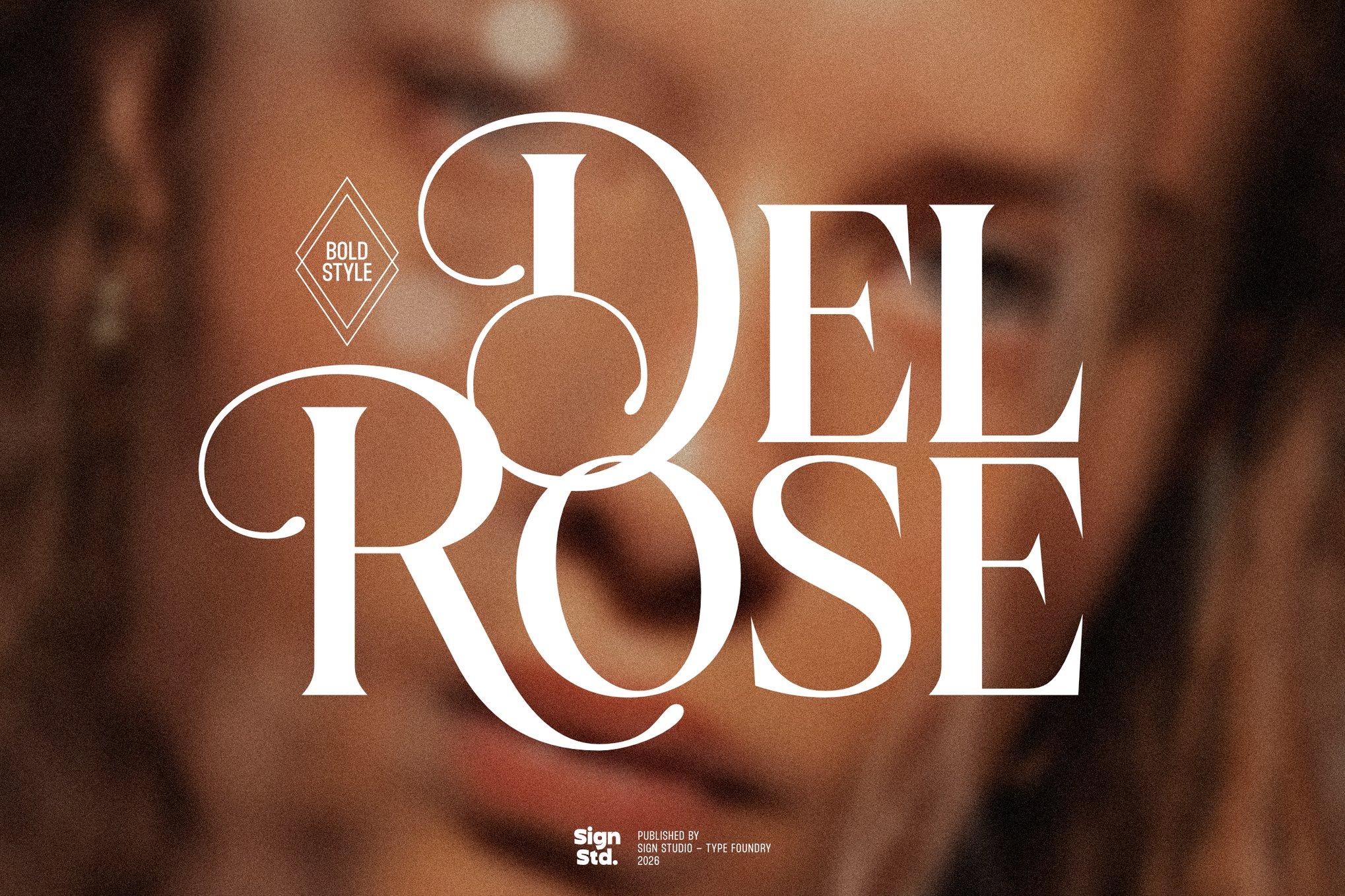
Del Rose – Bold Elegant Font
Del Rose – Bold Elegant Font is a distinctive and expressive font crafted to bring personality, structure, and creative energy into your projects. Del Rose Bold is an elegant serif font that combines timeless beauty with a bold, confident presence. Carefully crafted with refined details and balanced proportions, it brings sophistication and strong visual impact to a wide range of creative projects.
Its bold weight is perfect for eye-catching headlines, luxury branding, logos, editorial layouts, packaging, invitations, beauty products, and premium marketing materials. Designed to stand out while maintaining excellent readability, Del Rose Bold adds a distinctive touch to every design.
Whether you’re building a memorable brand identity or creating elegant print and digital designs, Del Rose Bold offers the perfect balance of classic charm and modern versatility.
OpenType Features
Discretionary Ligature
Standard Ligature
Alternate Characters
Stylistic Set (01 & 02)
Small Capital (Lowercase to Caps)
Multilingual support
PUA encoded